Dinosaur fonts aren’t just about slapping some scales on your text and calling it prehistoric. They have to capture the raw power, ancient mystery, and yes, even the playful charm of our favorite extinct creatures. Whether you’re designing for a natural history museum, creating materials for Jurassic-obsessed kids, or just want to add some prehistoric punch to your project, the right dinosaur font can make all the difference.
In this comprehensive guide, we’ll dig deep into the world of dinosaur fonts (pun absolutely intended). We’ll explore what makes these fonts feel authentically prehistoric, where to use them for maximum impact, and I’ll share my top picks for the most “roarsome” options available in 2026.
So grab your paleontologist hat, dust off your explorer boots, and let’s embark on this typographic expedition together!
The Most Prehistoric Fonts of 2026
Not all dinosaur fonts are created equal – some look like they belong in a Saturday morning cartoon, while others could grace the walls of the Smithsonian. I’ve curated this list of my absolute favorite dinosaur fonts that truly capture that ancient, powerful essence we’re after.
Dinosauce Font
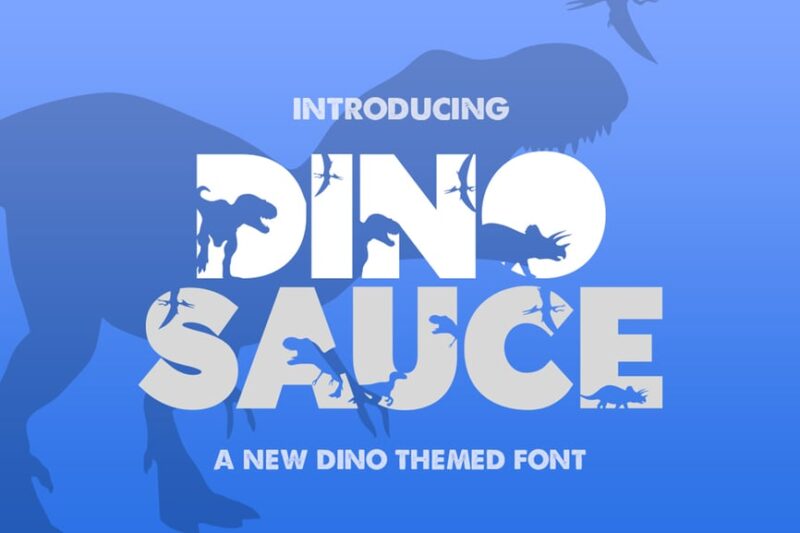
Dinosauce is a playful sans-serif font with a childlike and camp aesthetic. Its quirky letterforms make it ideal for kid-oriented designs, especially those with a dinosaur or adventure theme.
Dinosaur
Dinosaur is a versatile font family combining script, handwritten, and sans-serif styles with decorative elements. It’s perfect for projects requiring a prehistoric or animal-themed touch, offering a range of options from playful to more formal designs.
Dankosaurus
Dankosaurus is a fun, sans-serif font designed for kids’ gaming interfaces and dinosaur-themed projects. Its bold, rounded letterforms provide excellent readability while maintaining a playful, prehistoric vibe.
Dinosaurus Dingbat
Dinosaurus Dingbat is a symbol-based font featuring dinosaur and camping-themed icons. It’s an excellent choice for adding decorative elements to designs related to prehistoric themes or outdoor adventures.
Dino Roar
Dino Roar is a decorative font that captures the essence of dinosaurs and wild animals. Its rough, textured appearance makes it perfect for creating eye-catching headlines or logos for prehistoric or nature-themed projects.
Cave Stone
Cave Stone is a prehistoric earth font with a sans-serif style. Its chunky, stone-like letterforms evoke a caveman aesthetic, making it ideal for projects related to early human history or dinosaur themes.
Little Dino
Little Dino is an outline font perfect for birthday-themed designs and text effects. Its playful, dinosaur-inspired letterforms add a touch of prehistoric charm to children’s party invitations or celebratory graphics.
Dino Jumps
Dino Jumps is a sans-serif font with decorative elements, blending cartoon-style with clean lines. Its lively character makes it suitable for children’s books, educational materials, or any design requiring a fun, dinosaur-themed typography.
Dinoplay
Dinoplay is a sweet and playful script font with decorative elements. Its handwritten style and display-friendly design make it perfect for creating charming headlines or logos for children’s products or dinosaur-themed projects.
Dinomik
Dinomik is a cute and playful sans-serif cartoon font. Its rounded edges and friendly appearance make it ideal for comic-style designs, children’s books, or any project that requires a fun and approachable typographic style.
Dino World
Dino World is a modern display typeface with a sans-serif style. Its bold, clean lines with subtle prehistoric touches make it suitable for contemporary designs related to dinosaurs or wildlife, striking a balance between playful and sophisticated.
Dino – SVG Color Font
Dino is a decorative SVG color font designed for kids’ projects. Its colorful, dinosaur-themed letterforms add a vibrant and playful element to designs, making it perfect for children’s books, games, or educational materials.
Dinofont Kids Friendly
Dinofont Kids Friendly is a sans-serif font designed with children in mind. Its friendly letterforms with subtle dinosaur-inspired elements make it ideal for educational materials, children’s books, or any design targeting a young audience.
Dino Moose
Dino Moose is a playful jungle font perfect for book covers and children’s typography. Its whimsical letterforms combine prehistoric and woodland themes, making it a unique choice for storytelling or nature-inspired designs.
So next time you need to convey power, antiquity, or natural wonder, consider reaching for a dinosaur font. Your designs might just evolve into something truly memorable.
After all, in the world of typography, sometimes you need to go extinct to truly stand out. These prehistoric powerhouses prove that some things never go out of style – they just get fossilized into legend.